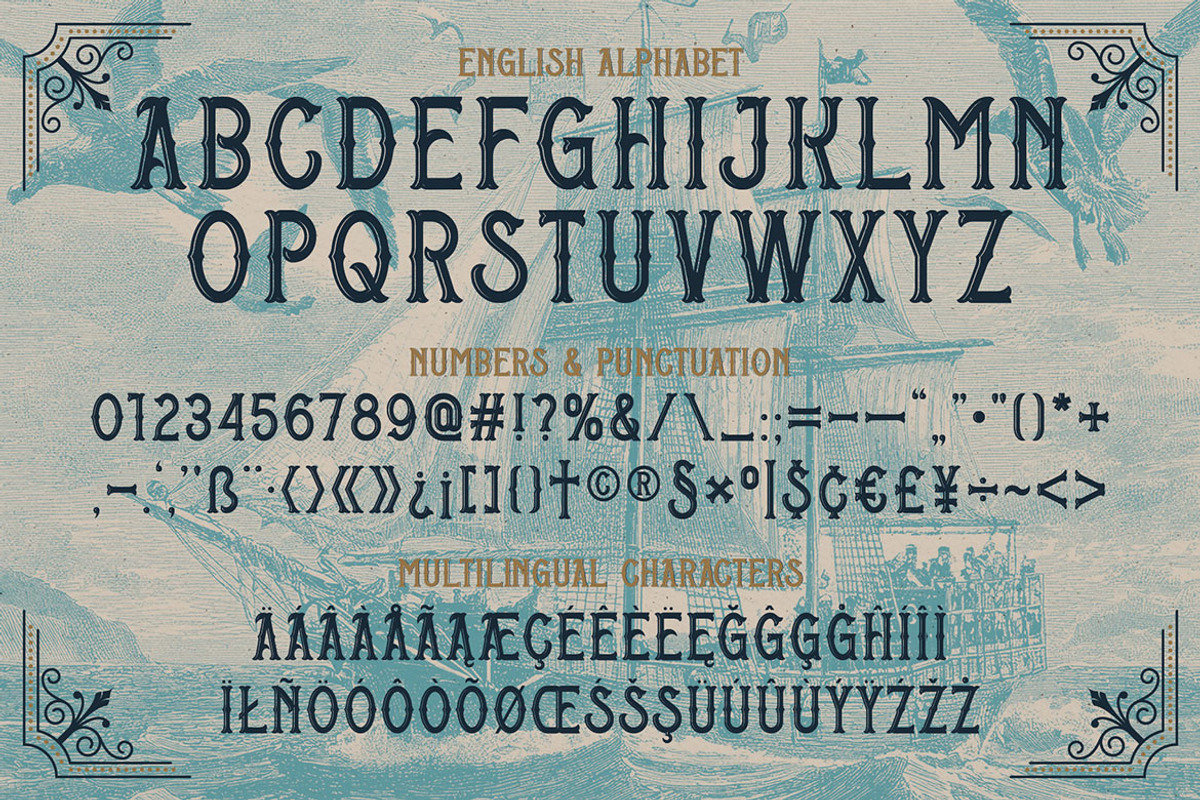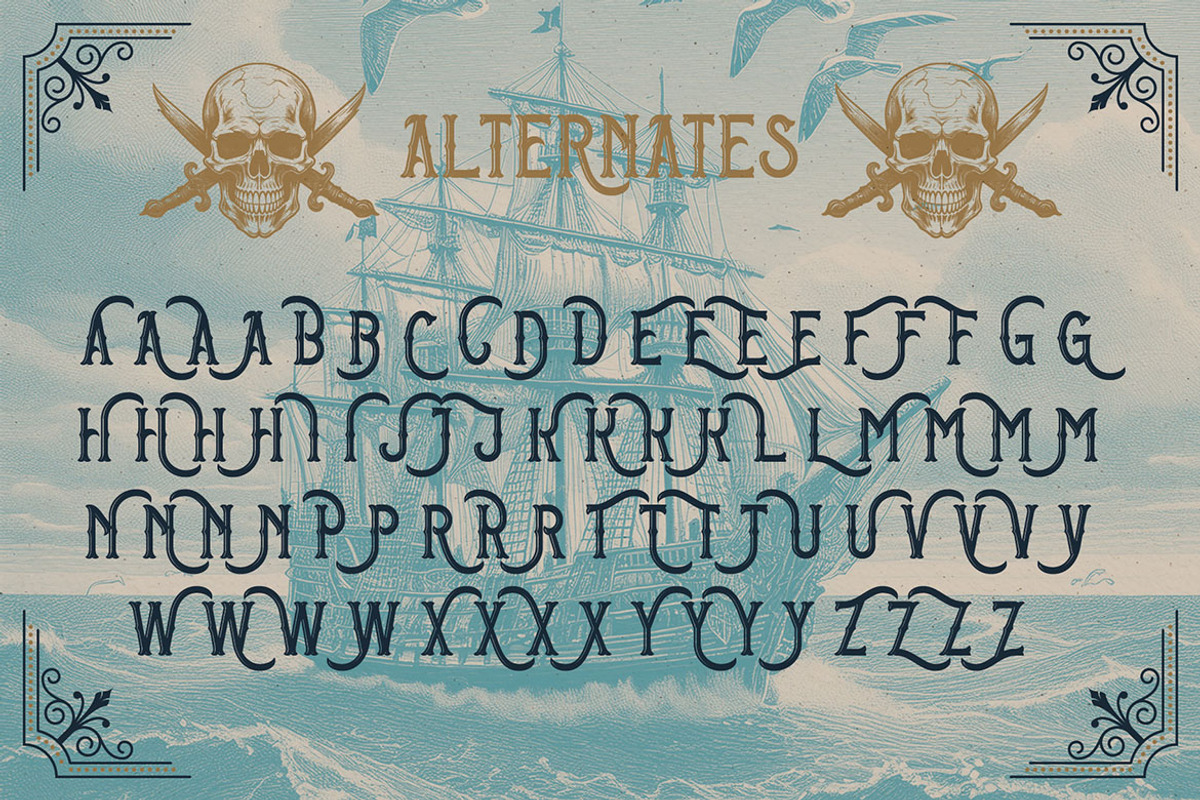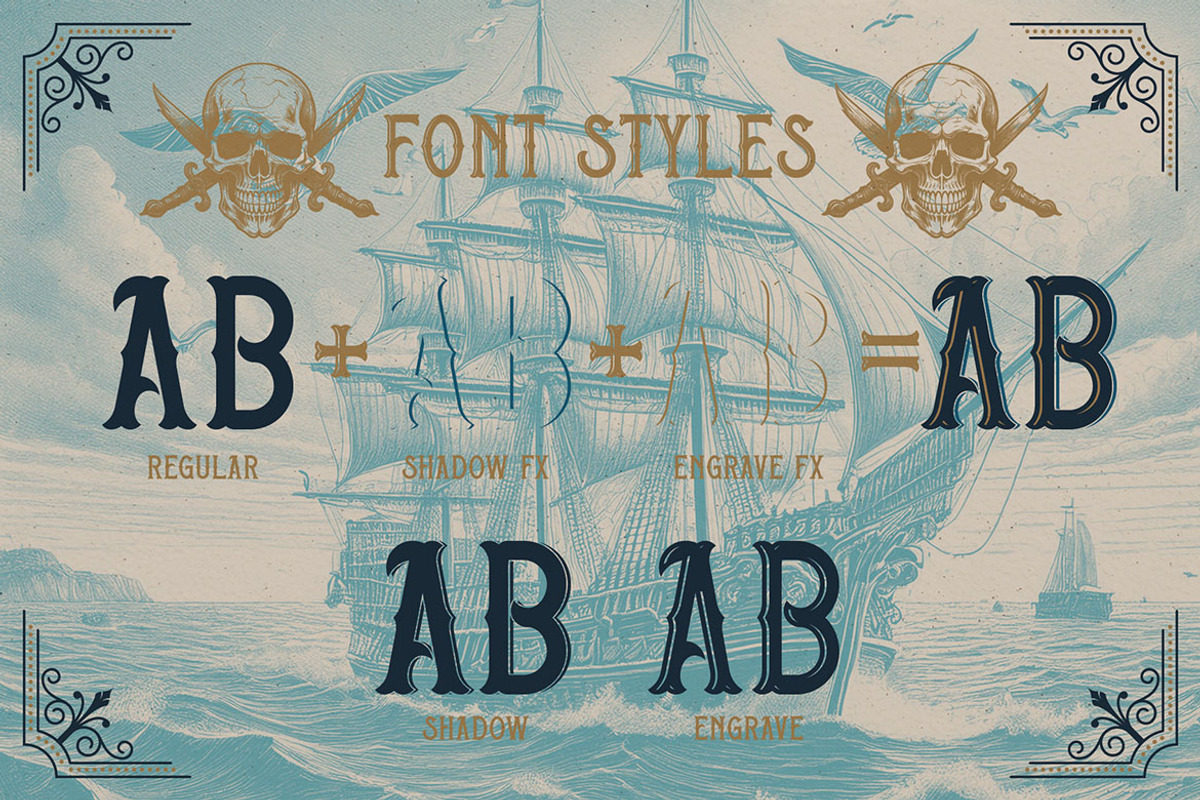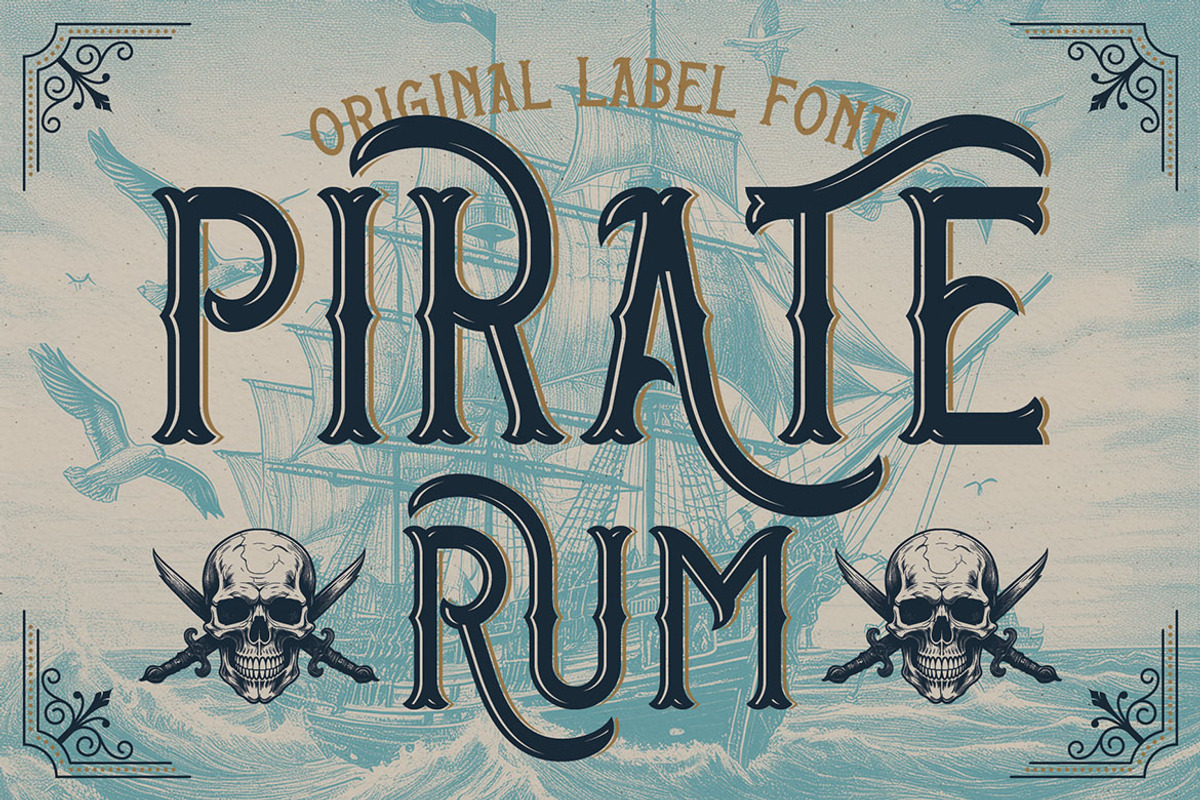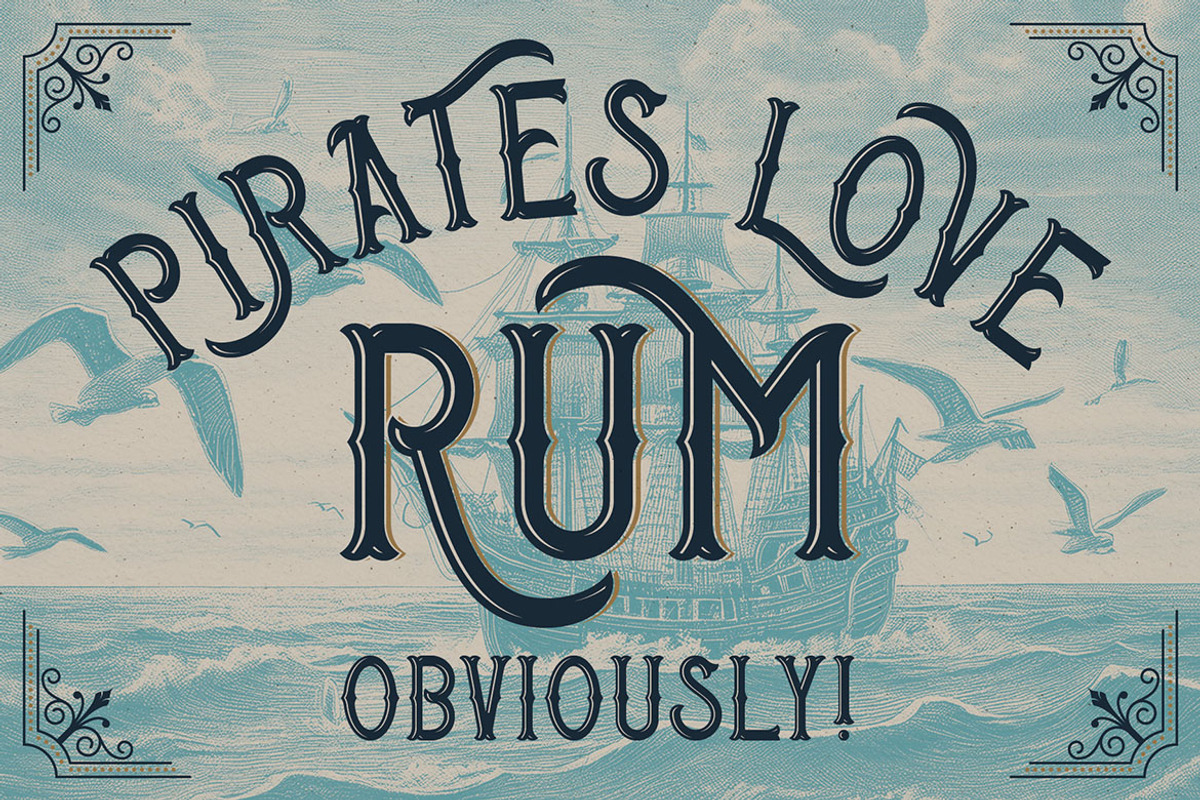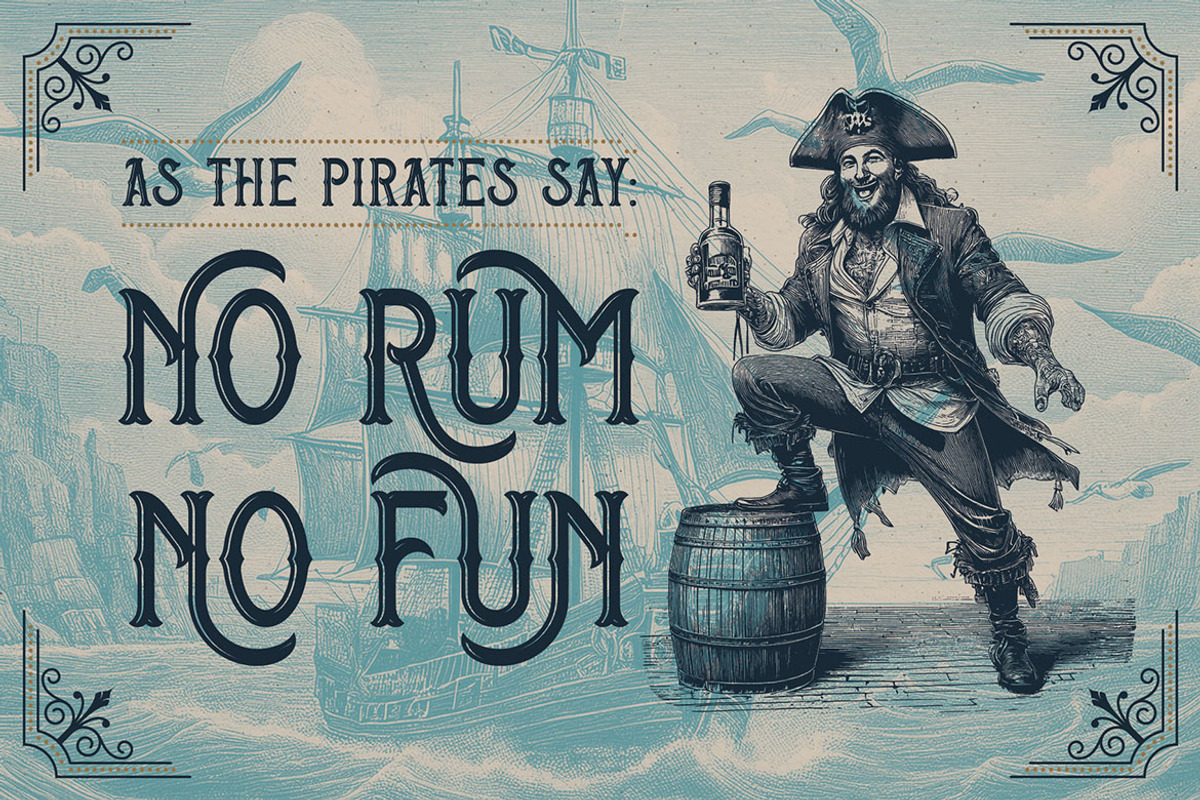
Pirate Rum Vintage Label Font
Unique, decorative, vintage, retro, fantasy, monogram & playful layered serif font. Comes with multilingual support & alternates with swirls + 5 font version - great for your new logo, monogram or branding project.
- 5 font versions - layered font, you can create decorative fonts with shadow or top layer effect
- Multilingual support & alternates with swirls
- Great for your new logo, monogram or branding project